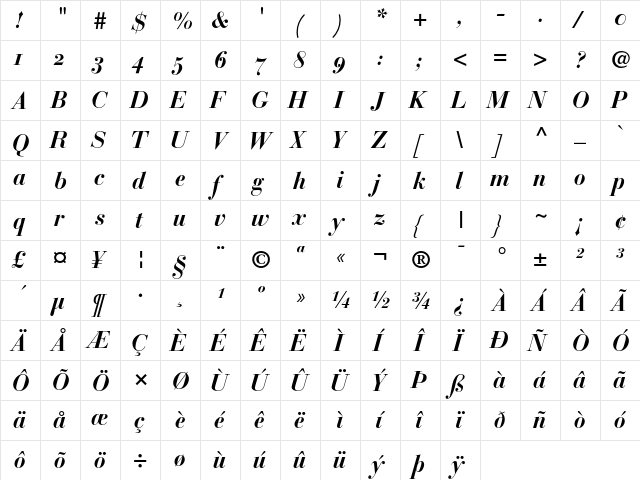
Bauer Bodoni Bold Italic Oldstyle Figures
Design Context for Bauer Bodoni Typeface
Bauer Bodoni brings classic typographic sensibility to the table — its serifs and measured letterforms reflect centuries of print heritage. Its italic angle brings a sense of urgency and motion to the letterforms. The heavy weight commands attention and anchors typographic hierarchies.
Pro Tip: Set Bauer Bodoni with slightly loose tracking in headlines to let each letterform's detail read clearly at display sizes.